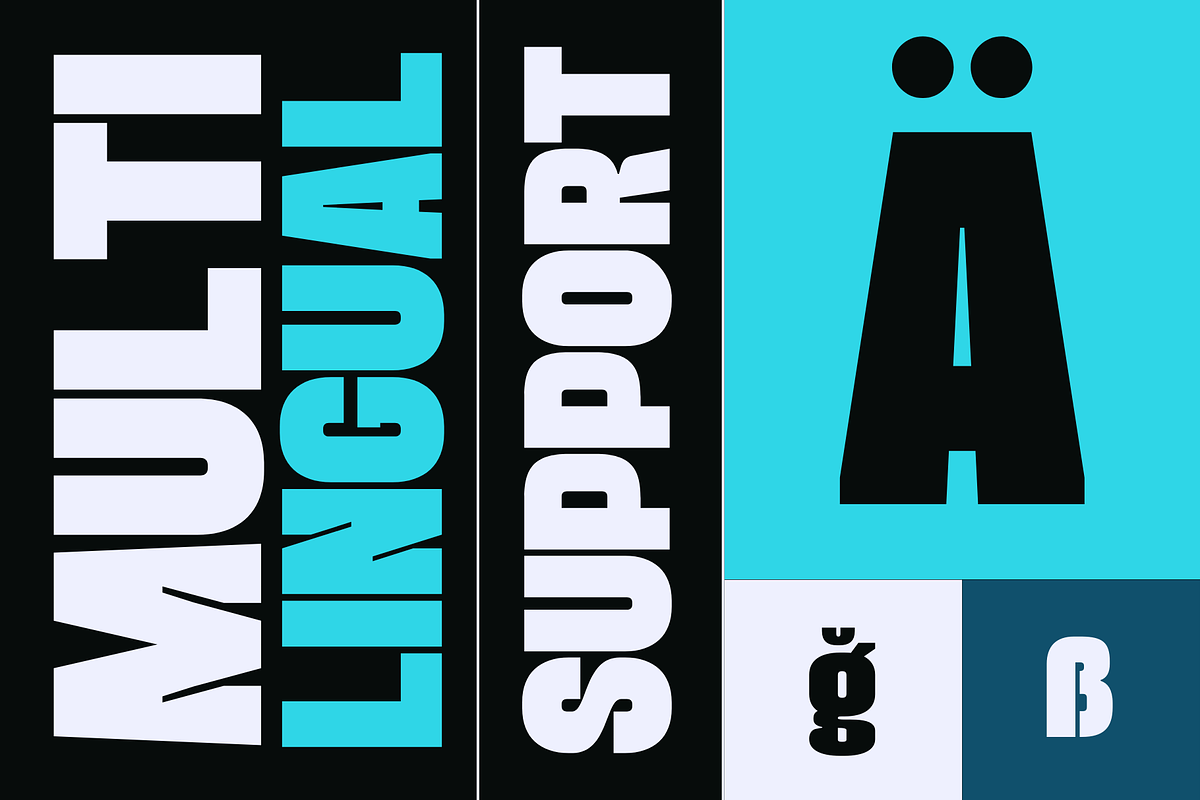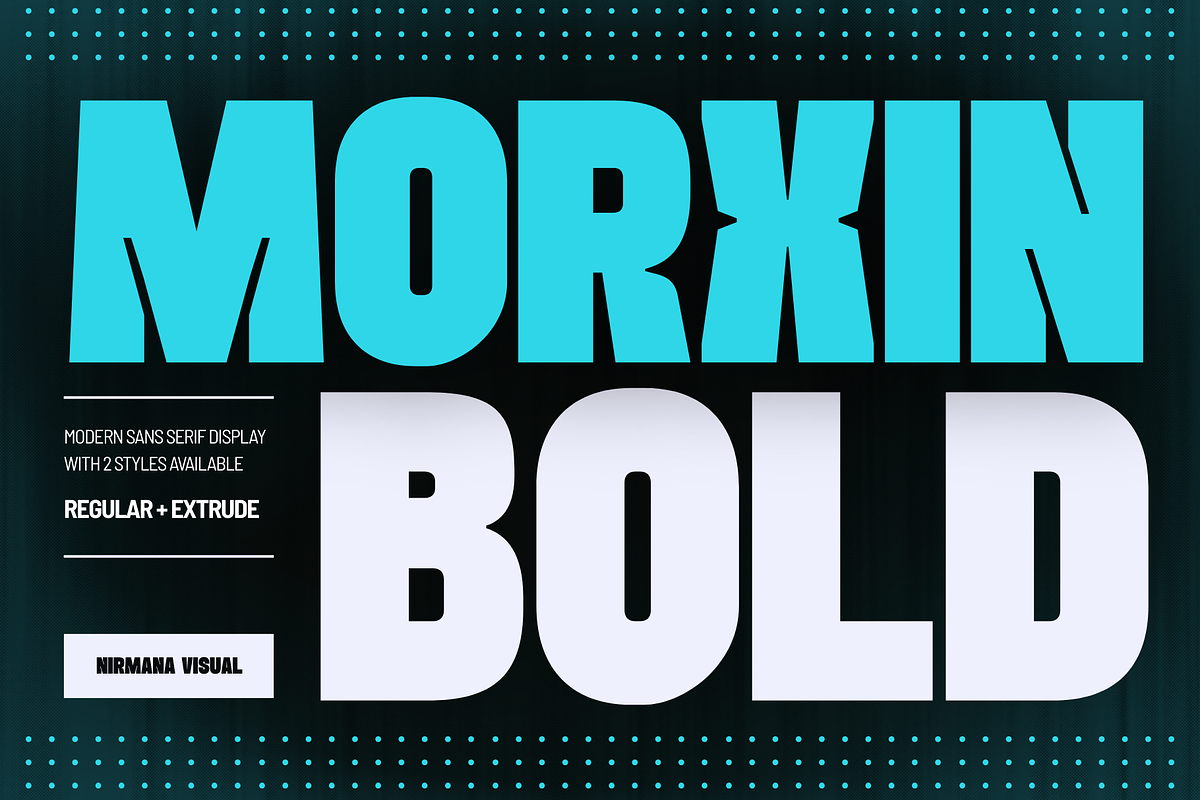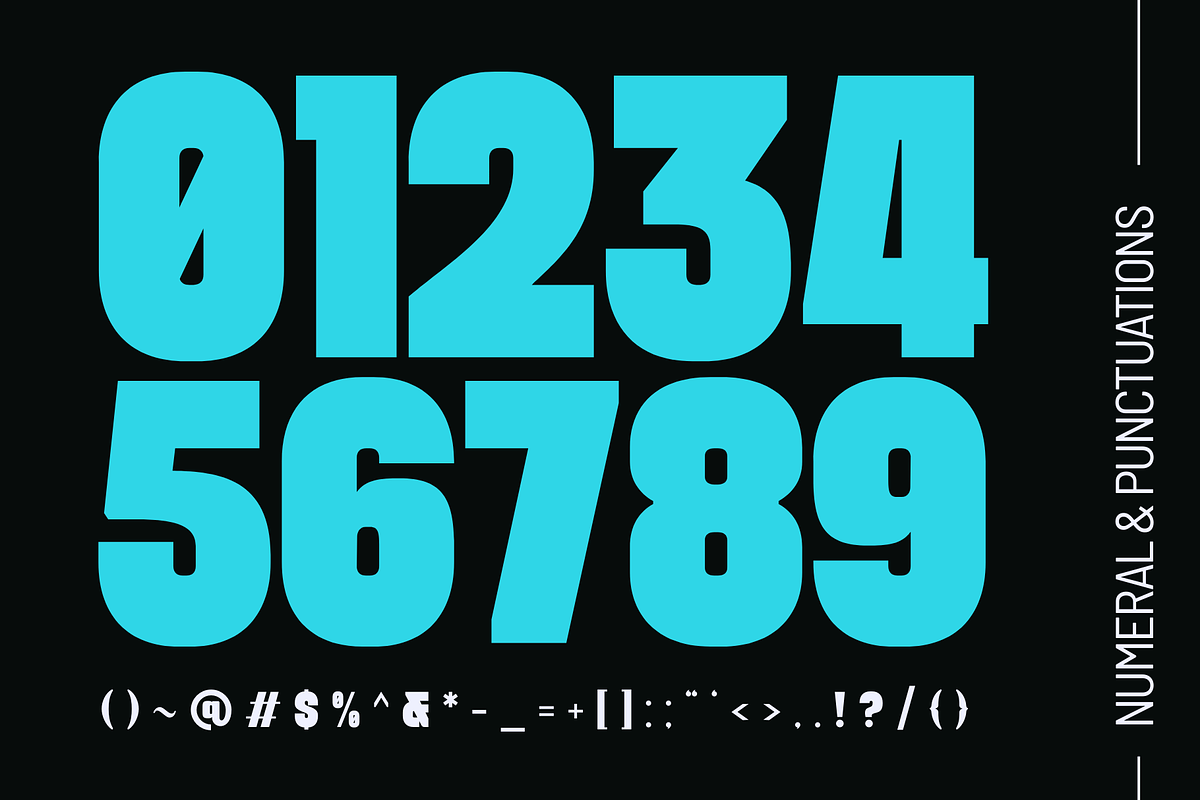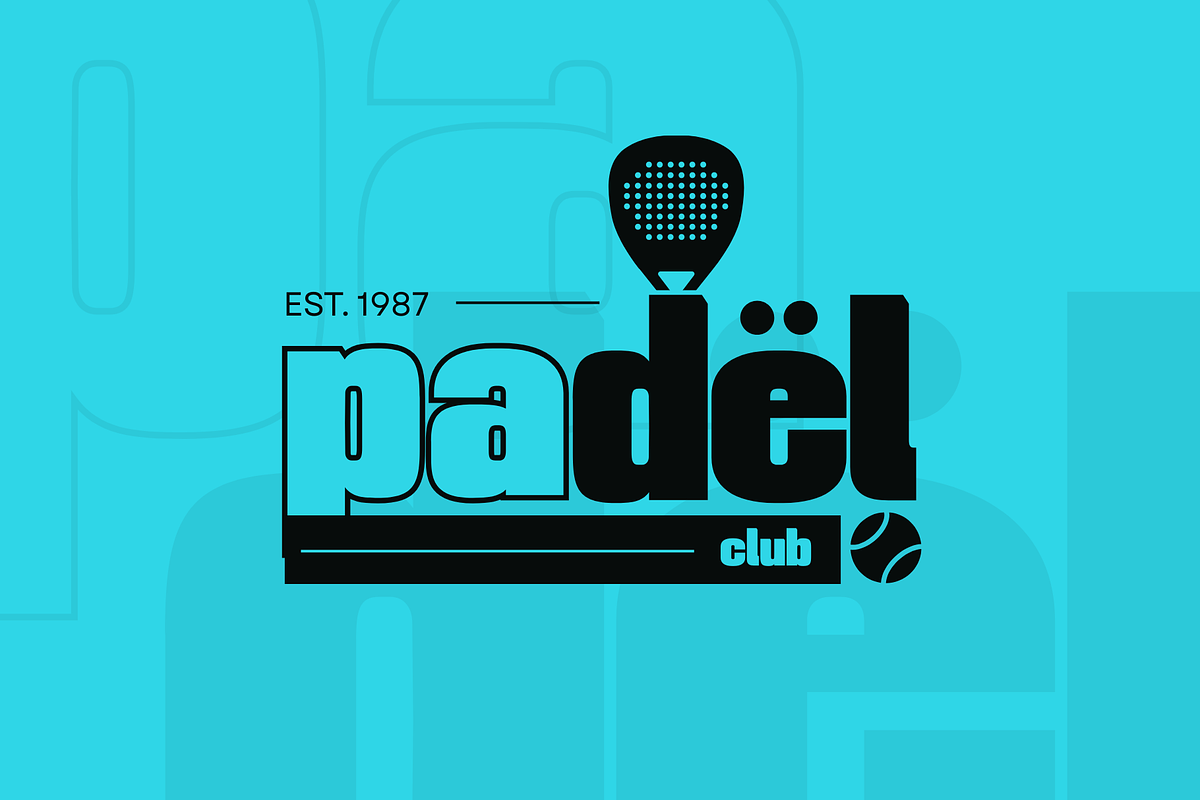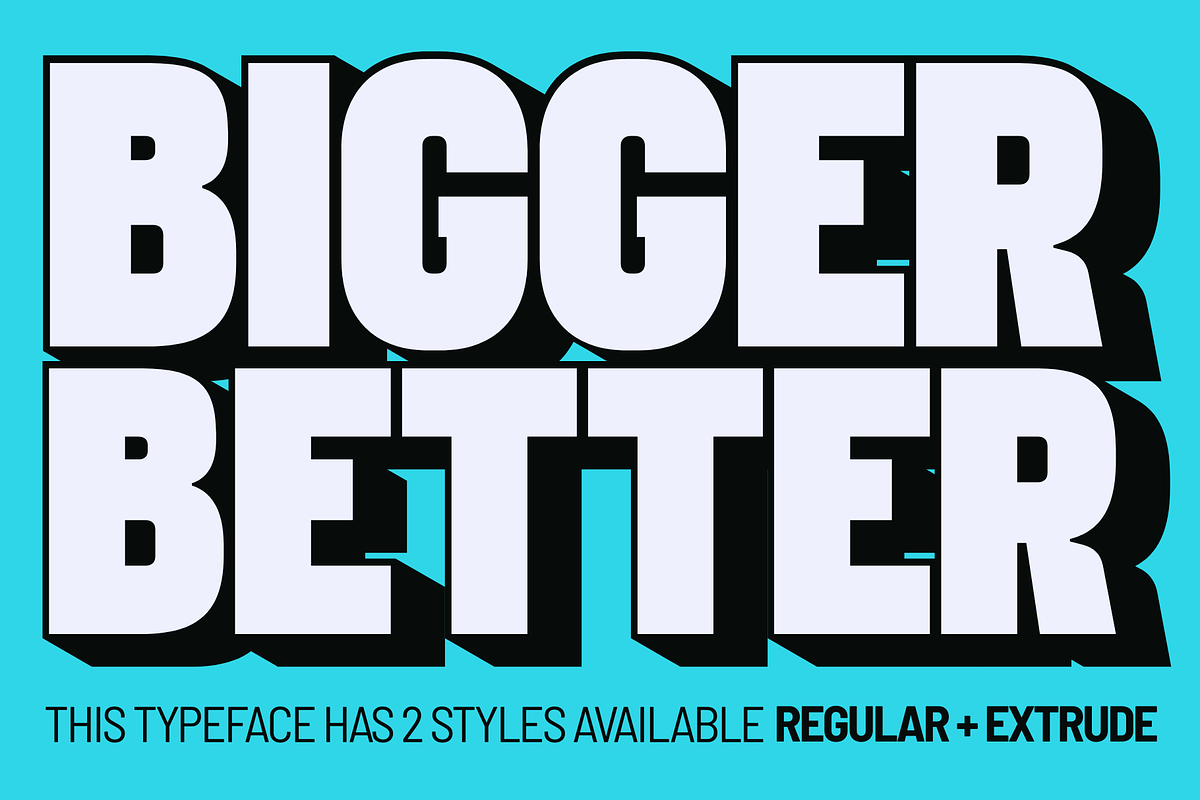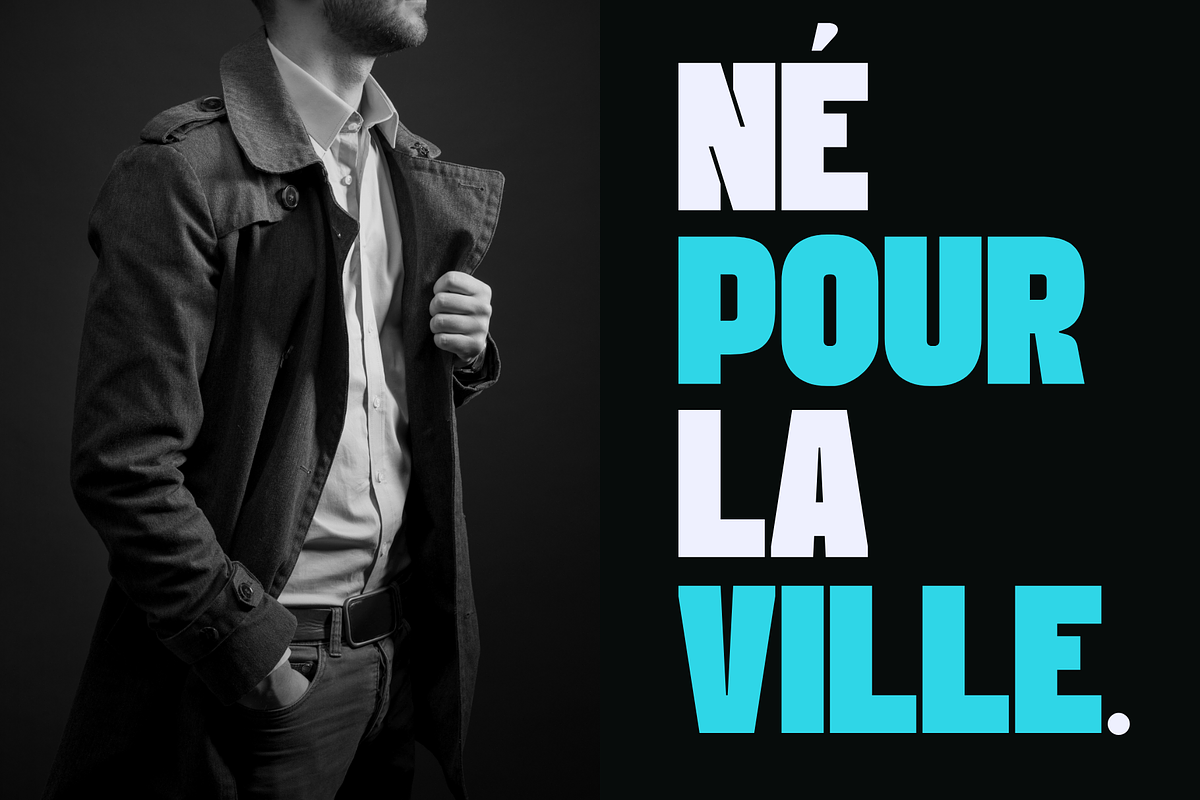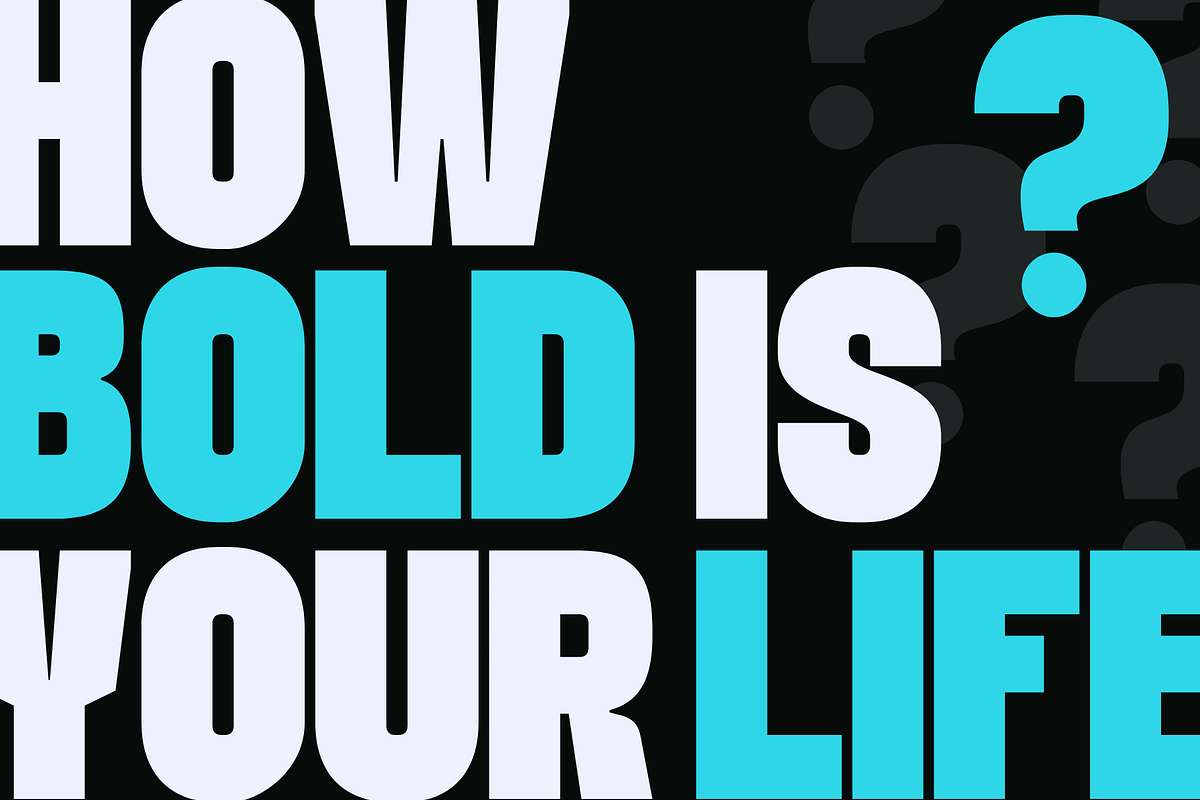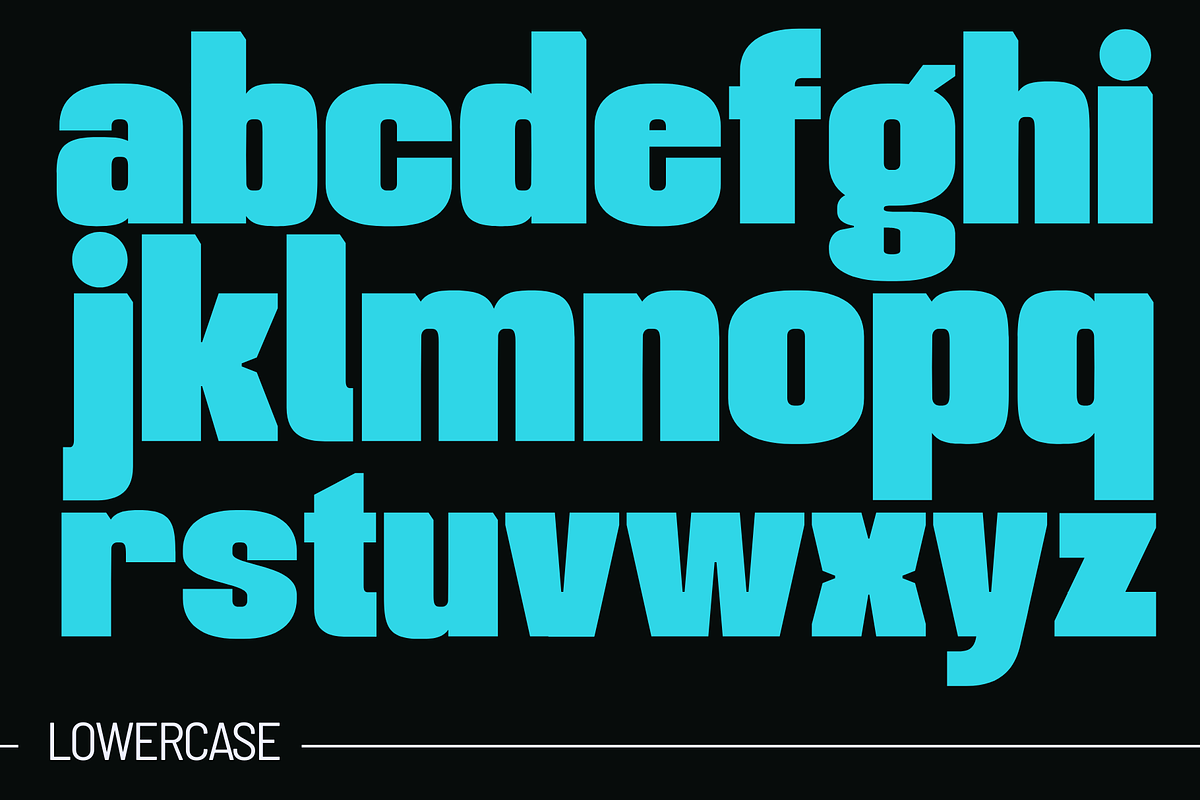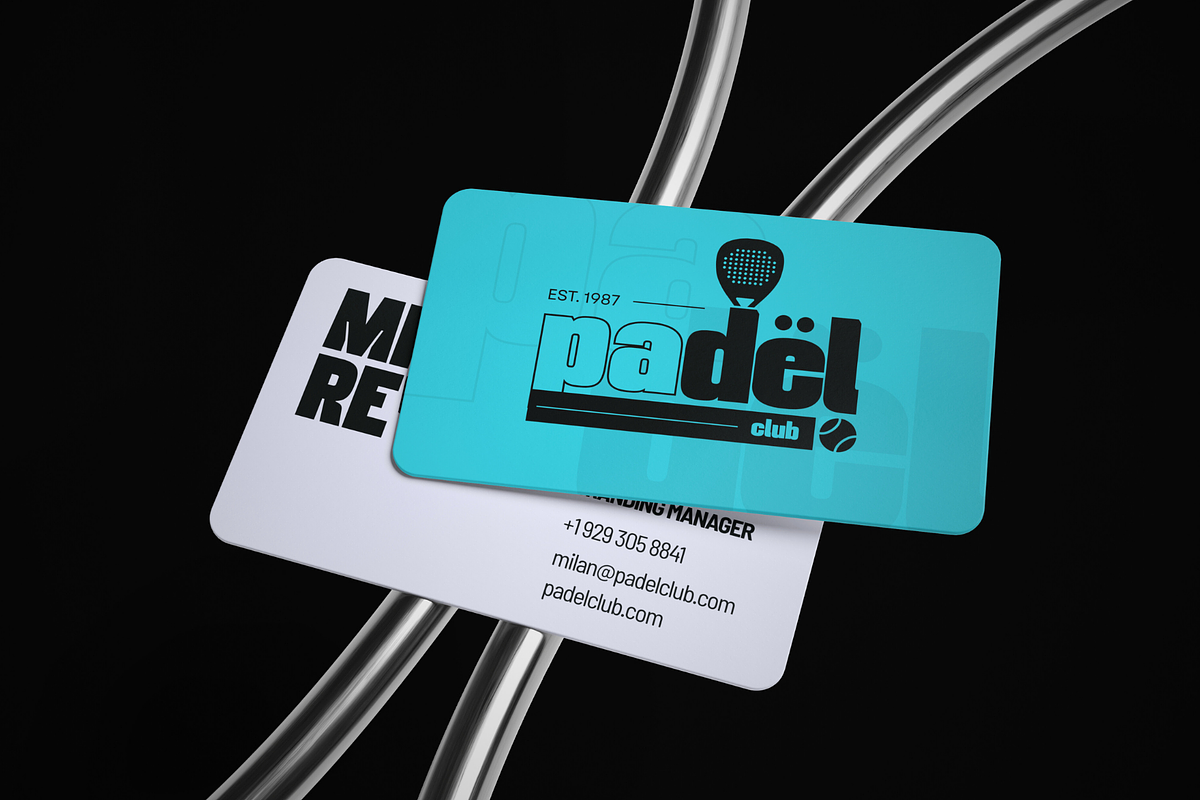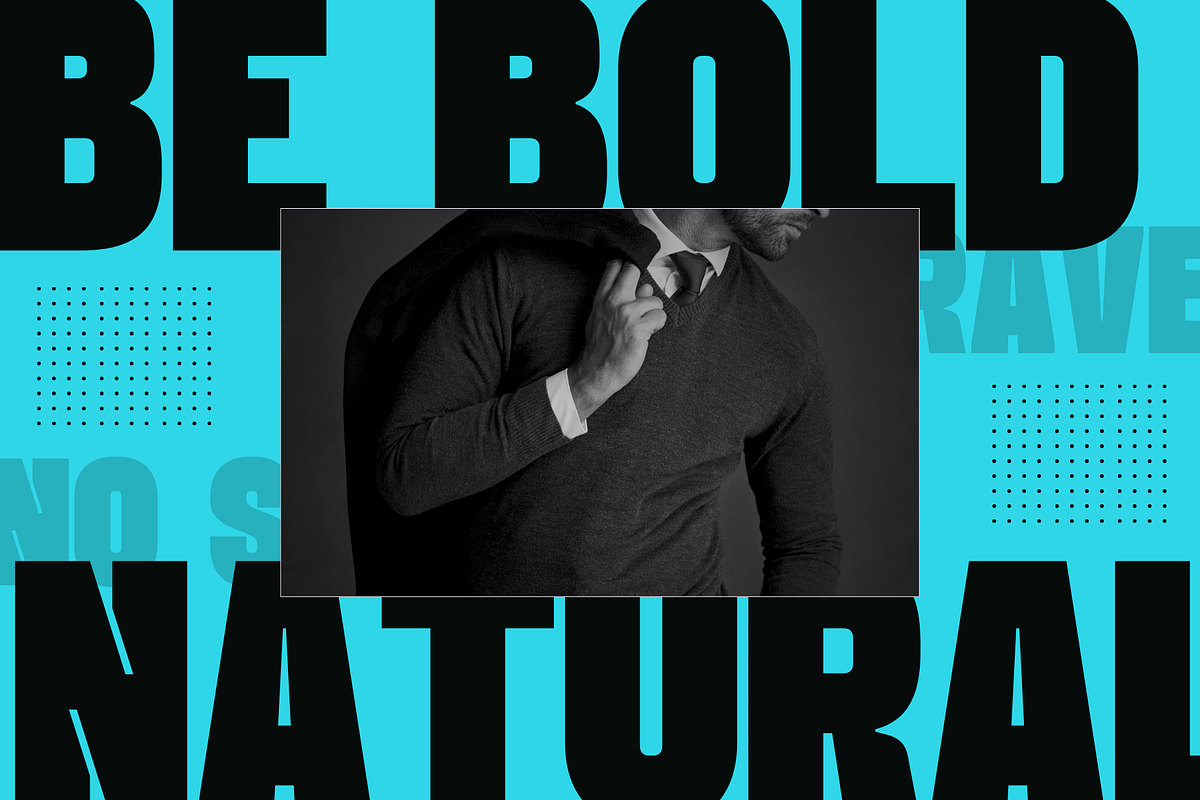
Morxin Bold - Modern Logo Font
Morxin Bold is a powerhouse display sans serif designed to dominate the visual landscape of modern branding. Featuring a striking extrude effect, this font adds immediate architectural depth and an urban edge to any project, from high-impact logos to gritty street-style posters. Its clean, geometric foundations ensure readability while the 3D perspective injects a sense of kinetic energy and forward-thinking style. Whether you are crafting a bold advertising campaign or a cutting-edge corporate identity, Morxin Bold delivers a rugged, industrial sophistication that demands attention and defines the contemporary aesthetic.